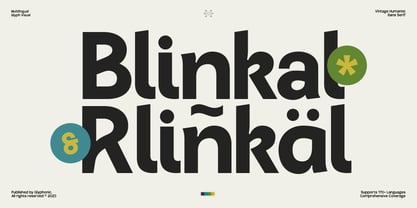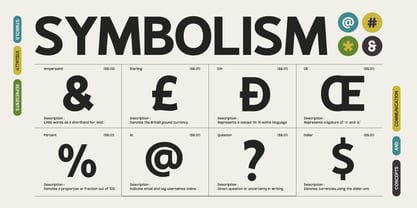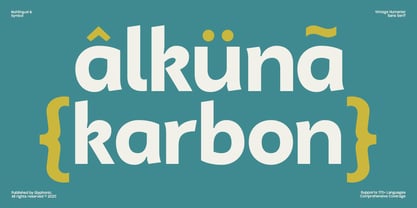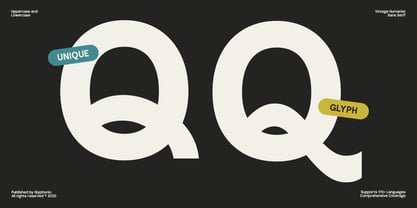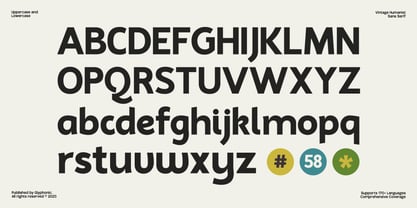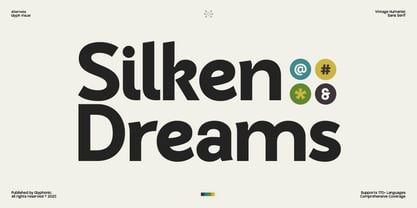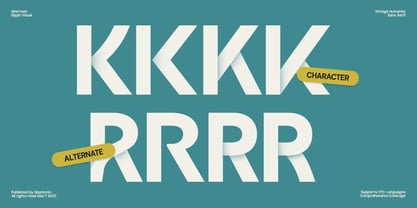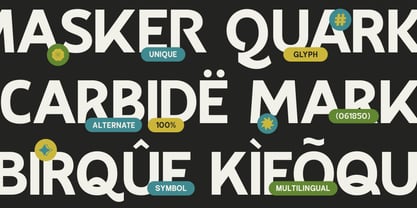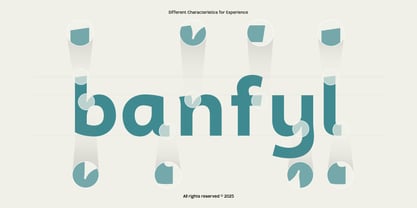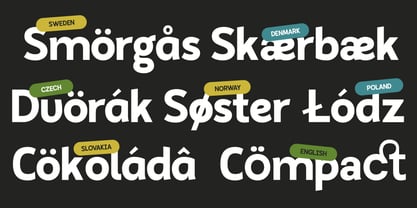
GC Ralinka
by Onyx Studio
The GC Ralinka Font Family was designed by Muhammad Hafiizh Solana and published by Onyx Studio. GC Ralinka contains 2 styles and family package options. More about this family
GC Ralinka is a bold humanist sans-serif typeface that blends warmth and strength with clean, modern lines. Designed for maximum readability and personality, it’s perfectly suited for headlines, branding, logos, packaging, editorial layouts, and impactful display projects. Crafted to communicate with clarity and confidence, it leaves a lasting impression in both print and digital media. With its sturdy letterforms, subtle curves, and balanced proportions, GC Ralinka delivers a friendly yet professional tone. Whether you’re designing for lifestyle brands, creative campaigns, or corporate identities, this typeface offers versatility and refined style for any context. Features: Uppercase & Lowercase Ligatures & Stylistic Alternates Numbers & Punctuation Multilingual Support Make your design bold, refined, and timeless with GC Ralinka.